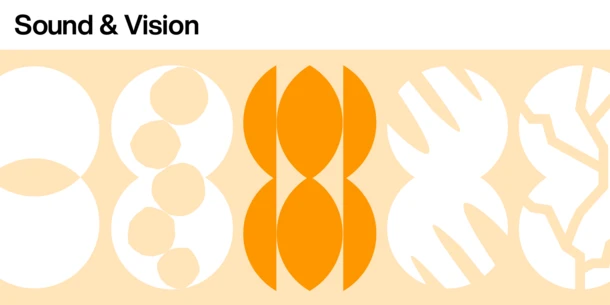
Sound and Vision Are the Future of Branding
No one can agree on exactly when branding was born, but its evolution has been rapid. Over hundreds of years, companies have journeyed from hand-painted posters to three-dimensional logos to sound, moving image, virtual reality, and whatever waits for us next.
The art of branding is now a multifaceted discipline. People want to see, hear, and even smell the brands they love, and they expect them to be more dynamic than ever. As companies navigate this huge multimedia landscape, type’s role continues to evolve. It will always be a tool for communication, navigation, and storytelling, but as we move towards more all-encompassing branding, type is constantly finding new forms to inhabit. You only need to look at how social media, streaming platforms, and digital advertising have redefined the use of dynamic type in storytelling.
It’s something we’ve explored in the Sound & Vision theme in our 2025 Type Trends Report, Re:Vision, which discusses how multimedia — in particular kinetic typography, soundscapes, and AI-driven design — is shaping our brand interactions. Companies are using these tools to create deeper connections with consumers. And that makes sense: in an age of constant visual noise, brands are fighting to stand out. Visual identities, adverts, social media posts, experiential activations — all are taking place against a torrent of other audiovisual content. Winning someone over to your brand means making them feel something, and typography has long been a direct path to people’s emotions.
Trust, nostalgia, urgency, excitement — all can be evoked with nothing more than a few letterforms. Combine those with motion and sound and the possibilities are huge. As type, motion, and sound flow around and together, they’re crafting brand narratives that transcend what’s thought of as traditional visual identity. Type will always be there, in static form, but it will also exist in a palette of unique motion gestures. And it’s easy to see how, over time, these moving typographic elements will become an essential part of a brand’s signature.
This broadening of branding is only going to accelerate as AI unlocks new possibilities. As part of our Sound & Vision theme, we’re exploring where this could go by partnering with music licensing company Audiosocket to launch Sonotype — an experiential, exploratory web app that lets users see music and hear fonts.
Already, brands are using these kinds of AI tools to create dynamic type, tailor typography for individual users, and synchronize sound and motion — and we’ve barely begun experimenting with the possibilities. Brand identities aren’t just going to be audiovisual, they’ll be fully hyper-personalized, adapting to context, emotion, and user interaction.
Type won’t just move and flow and flourish in real-time — it will respond to how someone feels, or where they are. Imagine a typeface that adapts its weight and structure depending on the music being played, or a soundscape that transforms as a user engages with content. Branding suddenly becomes an evolving, living entity.
As creatives, marketers, and brand leaders, we must embrace this shift. The challenge isn’t just keeping up, it’s about leading the evolution by creating brand experiences that captivate and immerse. Branding has always been emotional, and its future seems even more so as it becomes increasingly linked to what we hear, feel and, ultimately, remember.